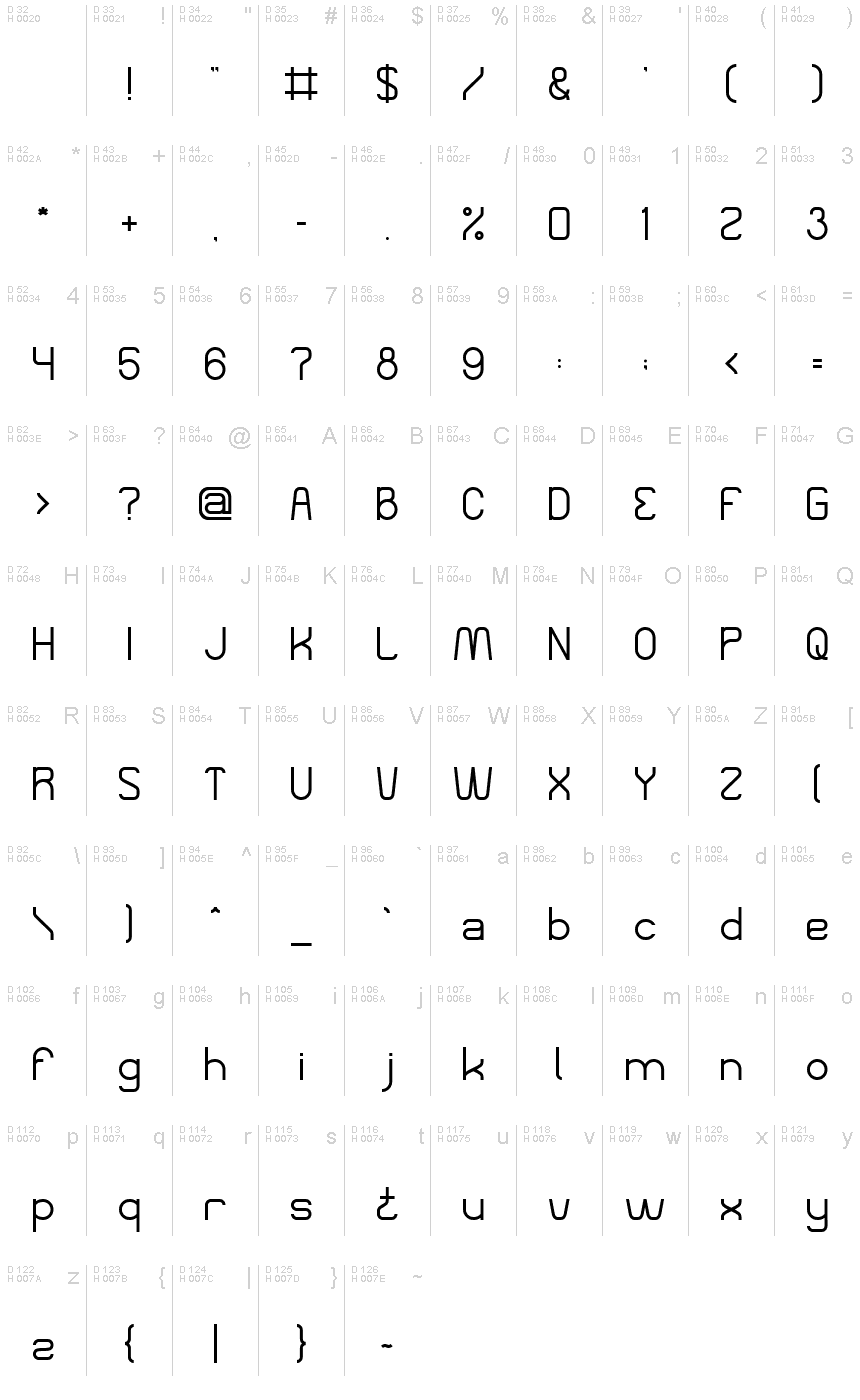
MODERN GIRL
Modern Girl, designed by weknow, is a captivating display font with a techno twist. Its semi-light weight adds a touch of delicacy to its casual sans serif style. This versatile font is perfect for creating eye-catching logos that exude class and elegance.
Its modern look makes it an excellent choice for branding projects, as well as invitations and stationery designs that demand sophistication. Modern Girl also shines in the world of social media, allowing you to effortlessly craft stunning posts that stand out from the crowd.
With its endless possibilities, this font is sure to elevate any project to new heights of visual excellence.